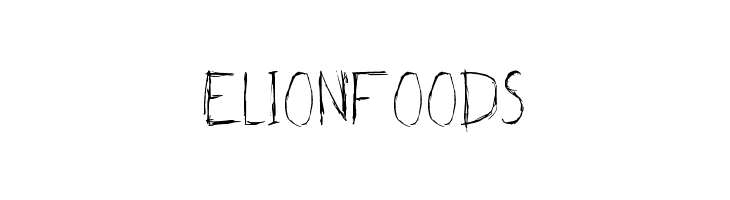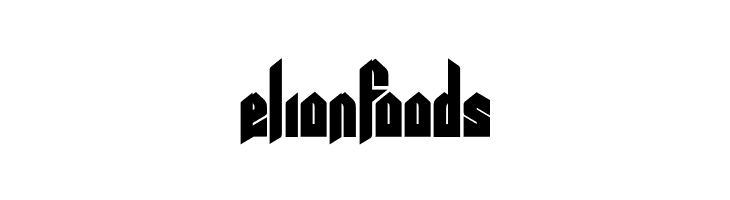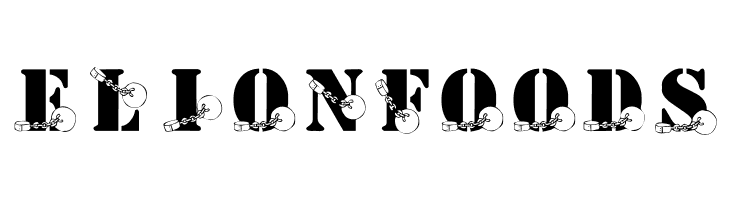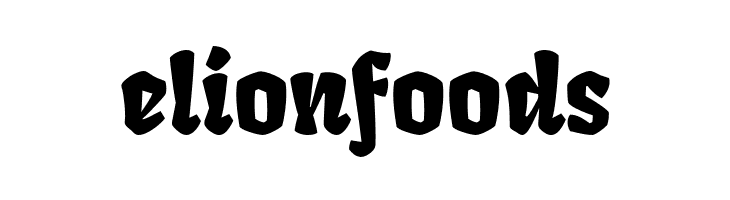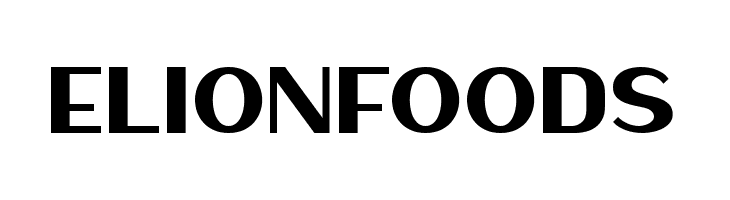
A whimsical, nature-inspired font with hand-drawn, twig-like characters.
A flowing, elegant script font with interconnected letters and a modern twist.
A bold, angular Gothic font with a modern, cyberpunk twist.
A bold, decorative font with a unique chain motif intertwined with each letter.
A classic, elegant calligraphic font with a modern, italicized twist.
A playful, handwritten-style font with a modern twist.
A bold, decorative font with blackletter influences and a modern twist.
A bold, angular serif font with a modern twist.